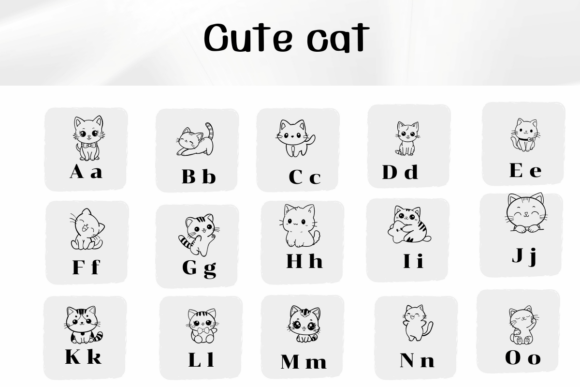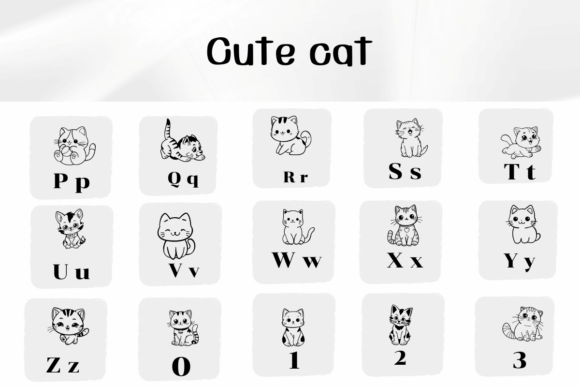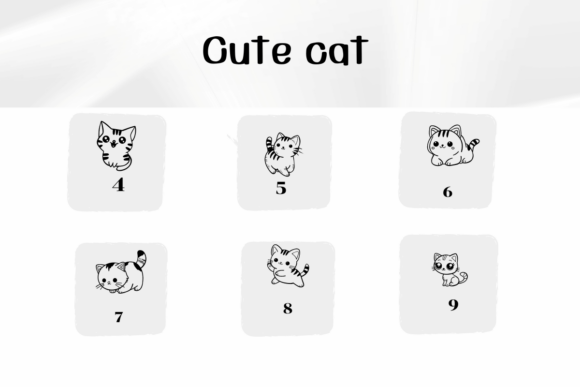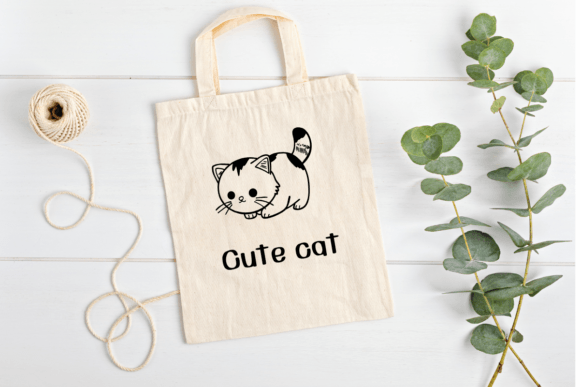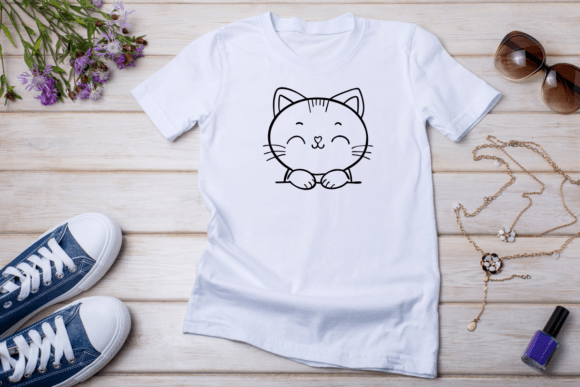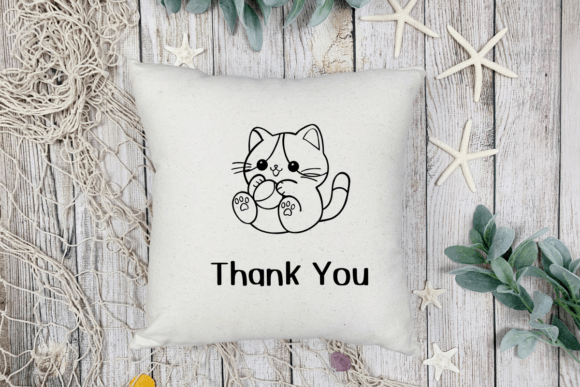
Cute Cat Font: Add a Playful Touch to Your Creative Projects
Are you looking for a fun and whimsical font to add a personal touch to your creative projects? Look no further than the Cute Cat Font! This adorable dingbat font features a collection of cute and playful kittens that are sure to bring a smile to anyone’s face. In this article, we’ll explore the features and benefits of the Cute Cat Font, and show you how it can enhance your wedding invitations, DIY projects, crafts, decorations, logos, and many other creative ideas.
What is Cute Cat Font?
Cute Cat Font is a unique dingbat font that features a set of illustrations of cute and playful kittens. Each character in the font is carefully designed to showcase the adorable and mischievous personality of these little felines. The font is perfect for adding a touch of whimsy and fun to any creative project.
Features of Cute Cat Font
- Unique and Playful Designs: The Cute Cat Font features a range of cute and playful kitten illustrations, each one carefully designed to bring a smile to your face.
- Dingbat Font: The font is a dingbat font, which means that each character is a graphical representation of a kitten, rather than a traditional letter or symbol.
- Easily Customizable: The font is easy to use and customize, allowing you to adjust the size, color, and style to fit your creative project.
Using Cute Cat Font in Your Creative Projects
The Cute Cat Font is versatile and can be used in a wide range of creative projects, including:
- Wedding Invitations: Add a playful touch to your wedding invitations with the Cute Cat Font. Use it to create custom illustrations of kittens, or as a decorative element to add visual interest.
- DIY Projects: The Cute Cat Font is perfect for DIY projects, such as crafting, scrapbooking, and card making. Use it to add a personal touch to your creations.
- Crafts: Use the Cute Cat Font to create custom signs, decorations, and other craft projects. The font is perfect for adding a whimsical touch to any craft project.
- Decorations: The Cute Cat Font can be used to create custom decorations, such as garlands, banners, and signs.
- Logos: Use the Cute Cat Font to create a custom logo for your business or brand. The font is perfect for businesses that want to convey a playful and fun personality.
Tips for Using Cute Cat Font
- Mix and Match: Experiment with different font sizes, colors, and styles to create a unique and playful look.
- Add Texture: Add texture to your designs by combining the Cute Cat Font with other fonts, graphics, or illustrations.
- Keep it Simple: Don’t overdo it! Use the Cute Cat Font sparingly to add a touch of whimsy to your designs.
| Font Name | Cute Cat Font |
| Author | Ketsarin |
The Cute Cat Font is a fun and playful dingbat font that is perfect for adding a personal touch to your creative projects. With its unique and playful designs, easily customizable features, and commercial use license, this font is a must-have for designers and crafters. Whether you’re creating wedding invitations, DIY projects, crafts, decorations, logos, or other creative ideas, the Cute Cat Font is sure to bring a smile to anyone’s face.